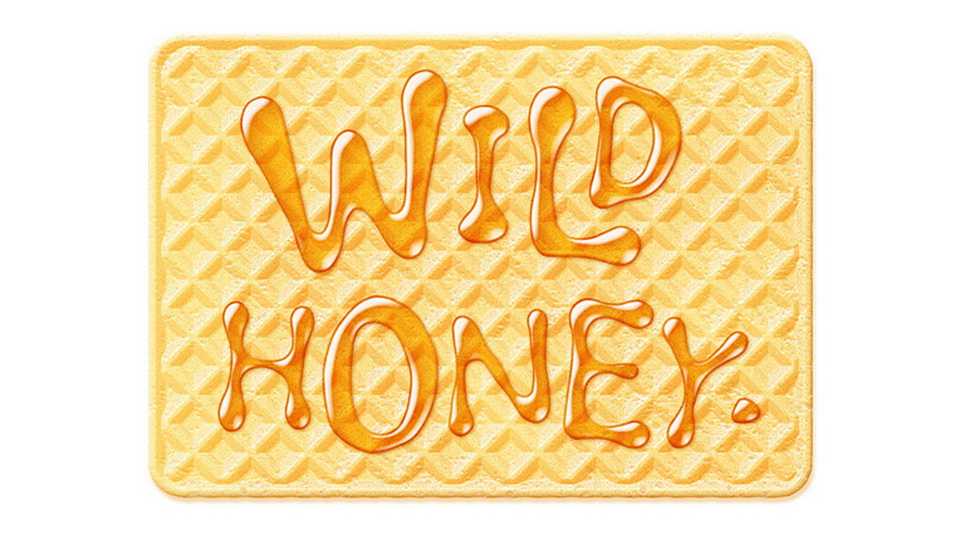
Download Wild Honey font, a fun and sweet handwritten typeface with a playful look. Its bold and curvy characters can add a bunch of personality to any project.
Designer: Denis Sherbak